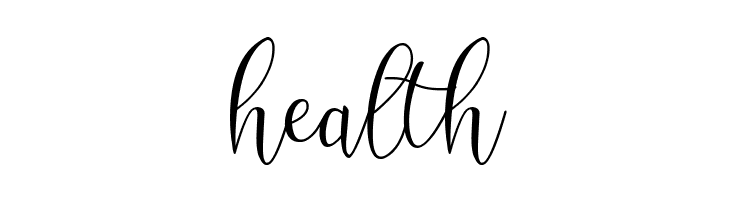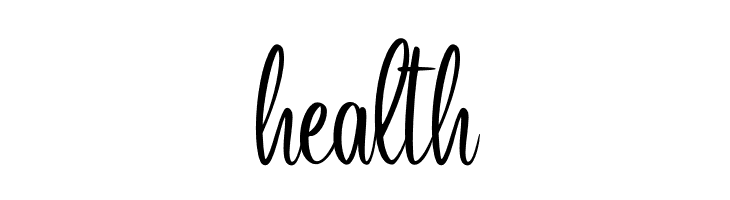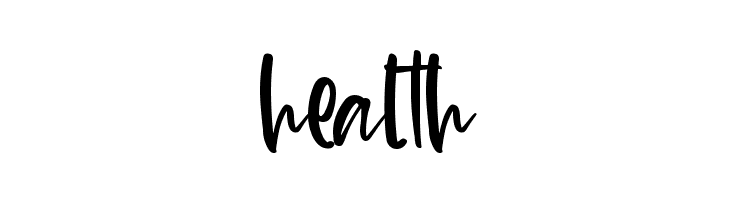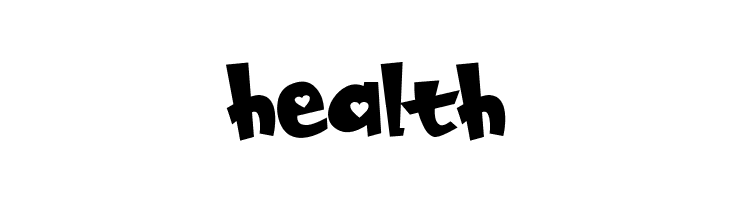
An elegant and flowing script font with intricate swirls and loops.
A flowing, cursive script font with elegant, connected strokes.
( Craft Supply Co. - creativemarket.com/craftsupplyco )
A classic serif font with elegant strokes and subtle curves, perfect for timeless designs.
( Darrell Flood )
A playful, bold serif font with a whimsical and decorative style.
( Emily Spadoni - www.emilyspadoni.com/ )
A whimsical, cursive script font with flowing, elegant strokes.
( Emily Spadoni - www.emilyspadoni.com/ )
An elegant and sophisticated cursive font with sweeping curves and delicate flourishes.
( Fadhil Aqsa - creativemarket.com/Meutuwah )
An elegant, cursive font with flowing, handwritten style.
( Mirco Zett - www.mirco-zett.de )
A bold, expressive script font with a hand-drawn, artistic style.
( Mirco Zett - www.mirco-zett.de )
A bold and expressive script font with dramatic flourishes.
( Saffatin co - creativemarket.com/saffatin.co )
An elegant script font with flowing, cursive style and intricate loops.
( Billy Argel - billyargel.com/ )
An elegant and flowing script font with decorative swashes and heart accents.
( Darrell Flood - hawtpixel.com )
A playful, handwritten font with a whimsical and friendly style.
( Fonts on us )
A whimsical, hand-drawn font with playful decorative elements.
( London's Letters - www.londonsletters.com/ )
A decorative, holiday-themed font with script letters inside ornate ornaments.
( MPG Graphics - www.mpglighting.com )
A pictorial decorative font featuring stylized female portraits.
( Fonts by Darrell Flood )
A playful, hand-drawn font with characters on individual tiles, perfect for creative projects.
A playful and bold script font with smooth, flowing curves.
A whimsical font with heart motifs in uppercase and elegant cursive lowercase.
A romantic, heart-adorned script font with elegant cursive lowercase letters.
( Fonts by Ivan Yahya )
A playful, rounded font with bold, smooth curves and a friendly appearance.
( Fonts by Bangkit Tri Setiadi )
A playful, rounded font with smooth curves and a friendly appearance.
A whimsical script font with heart motifs and flowing cursive style.
A bold, flowing script font with elegant, cursive strokes.
An elegant, cursive font with smooth, flowing strokes and a handwritten appearance.
A stylish, flowing script font with elegant flourishes and a handwritten feel.
A graceful, cursive font with elegant curves and stylish flourishes.
A playful, bold, and hand-drawn style font with rounded characters.
An elegant script font with flowing cursive letters and intricate flourishes.
A playful and elegant script font with flowing, interconnected letterforms.
A bold, brush-style handwritten font with dynamic and expressive strokes.
( Fonts by Inermedia Studio )
A playful, bold font with a whimsical, hand-drawn style.